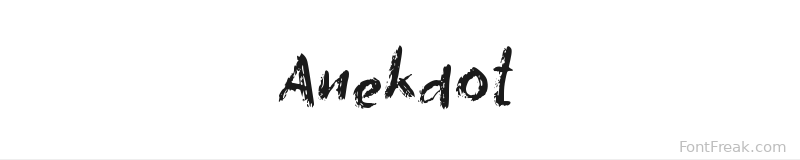
Anekdot
Anekdot, designed by Wahyu Eka Prasetya, is a captivating display font that brings a unique flair to any project. This typeface is characterized by its artistic, handwritten style, making it an excellent choice for creative applications. The strokes exhibit a moderate weight, with subtle variations that lend an organic feel to the letters. The spacing is well balanced, ensuring legibility while maintaining a casual yet sophisticated appearance. Decorative elements are minimal, focusing instead on the raw, expressive quality of the handwriting, which adds a personal touch to any design.
This versatile font is particularly suited for a variety of creative uses. It shines in wedding invitations, where its charming script can convey warmth and intimacy. Additionally, Anekdot works beautifully for restaurant menus, where it can evoke a sense of handmade quality and authenticity. Movie posters also benefit from its distinct character, allowing titles to stand out with an artistic edge. Furthermore, small business owners may find this font ideal for branding materials, as it can effectively communicate a friendly and approachable image. Content creators looking to enhance their digital projects will appreciate the unique personality that Anekdot brings to social media graphics and personal blogs.
The target audience for Anekdot includes graphic designers seeking a standout typeface, small business owners wanting to create a memorable brand identity, and content creators who aim to engage their audience with visually appealing text. What sets Anekdot apart is its ability to blend charm with practicality, making it a go-to choice for those looking to add a touch of creativity to their designs. For anyone interested in exploring this unique style, the Anekdot font free download offers an opportunity to enhance your projects with a distinctive and expressive typeface.